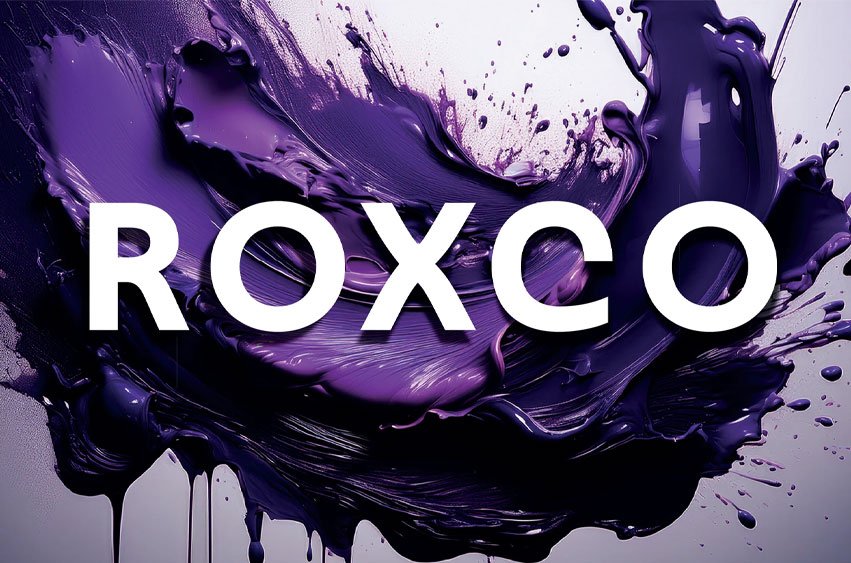
Roxco Font is a cutting-edge beyond the future. Roxco it’s a modular sans serif with precision curves, symmetrical cuts, and minimal contrast. Perfect for AR interfaces, HUDs, and futuristic branding.
Available in 6 weights, from Extralight to Bold, with optimized spacing and subtle stroke modulations for high-speed readability. Ideal for tech-forward designs and sci-fi aesthetics.